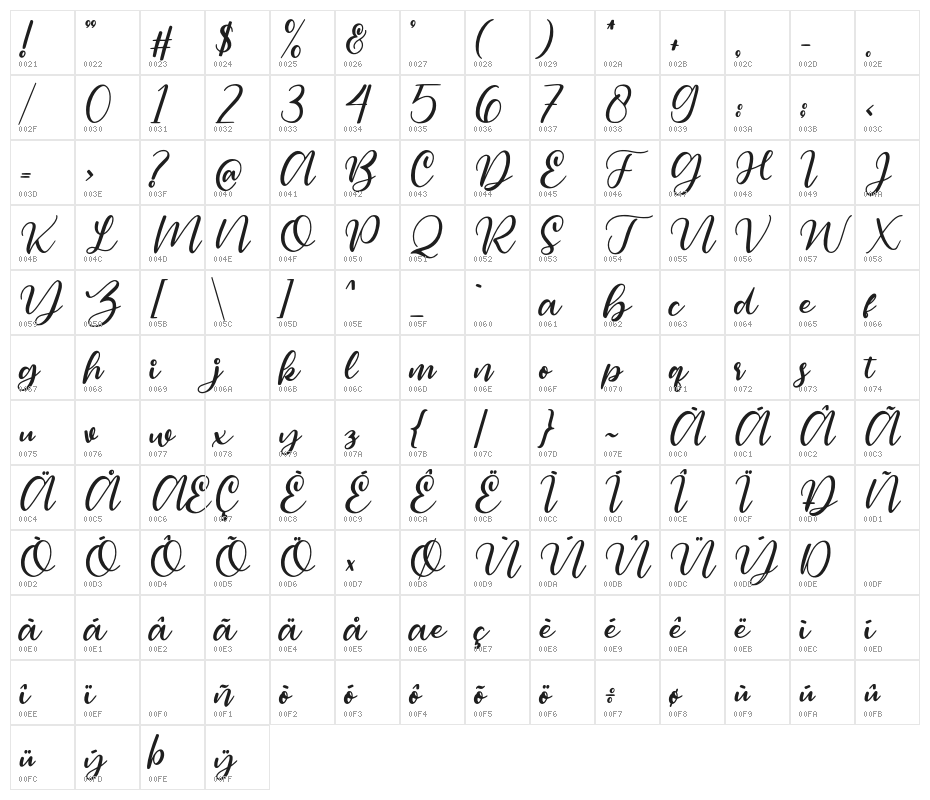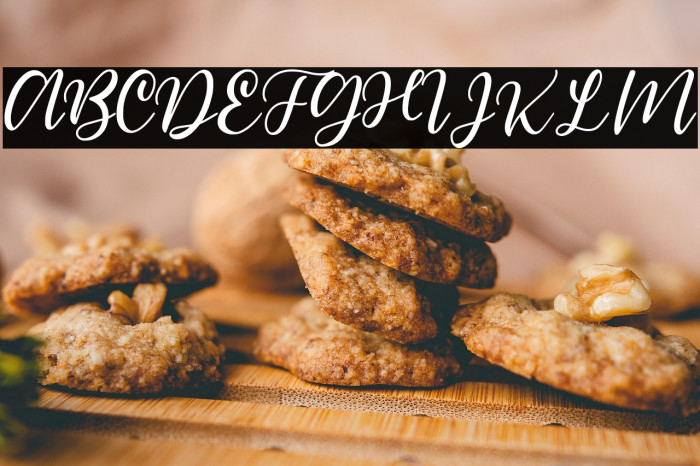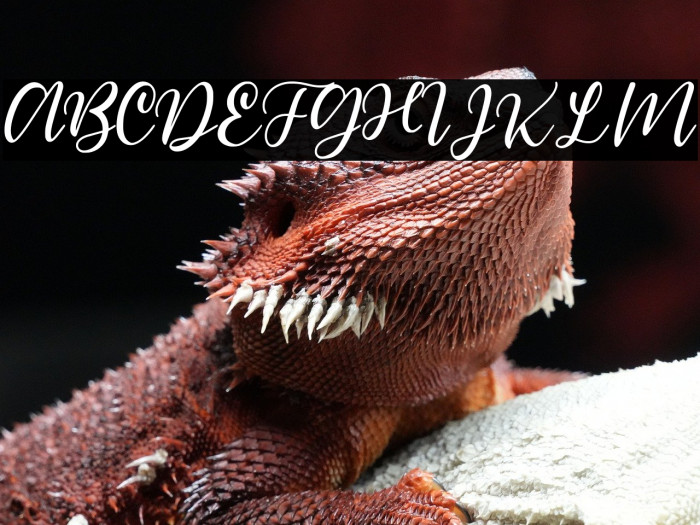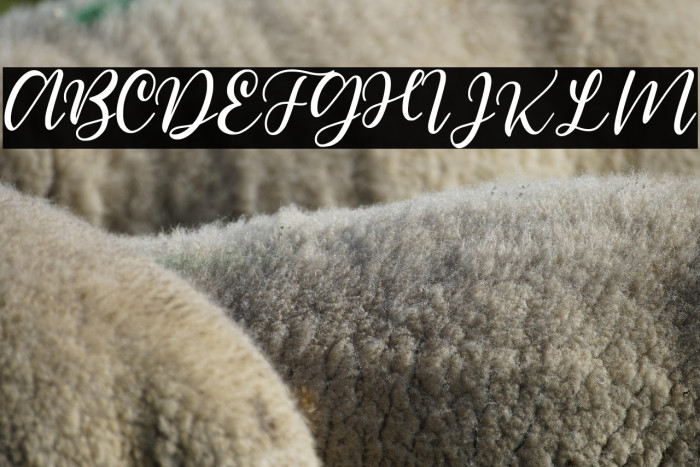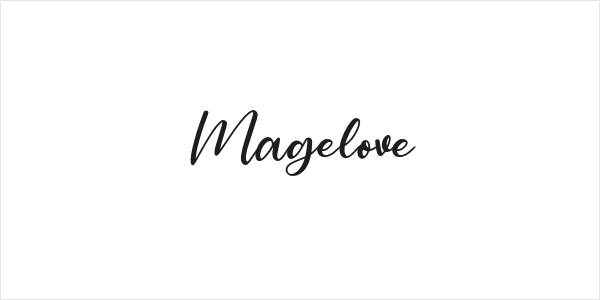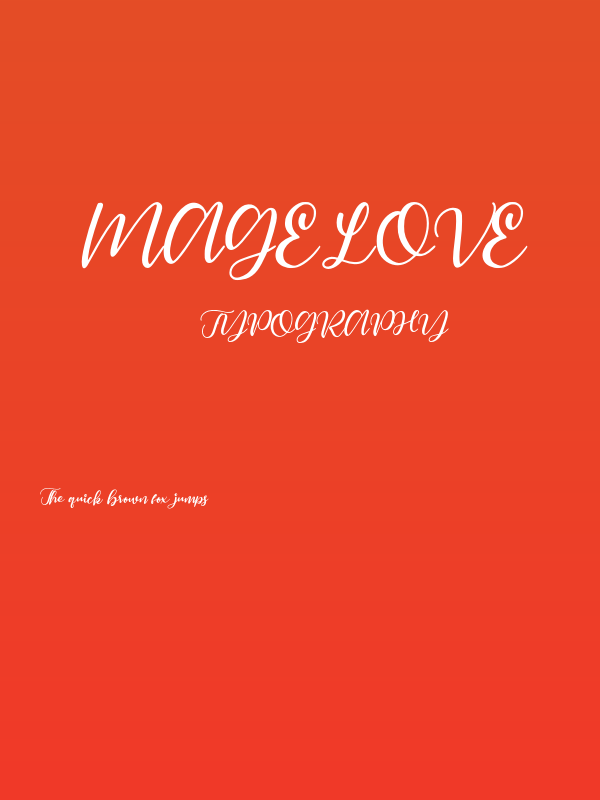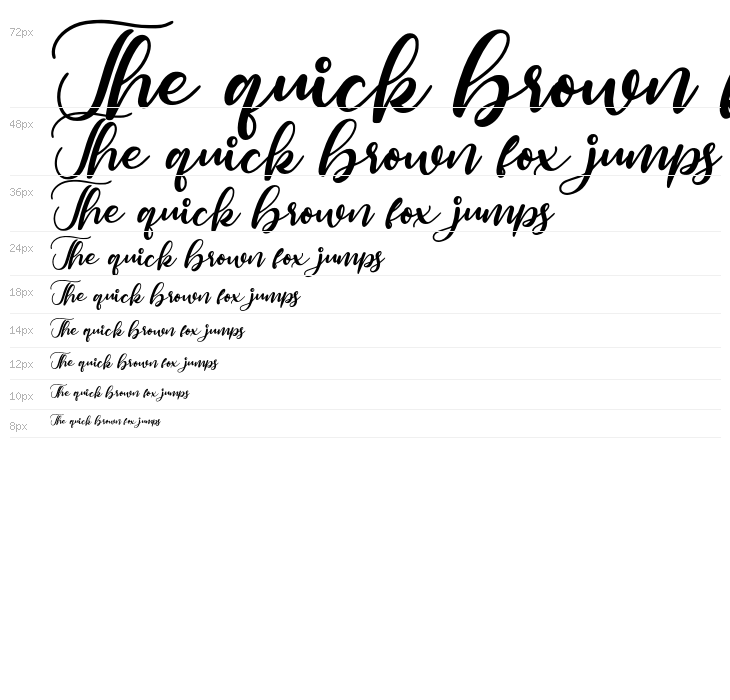
Magelove Font
Magelove Description
This font features a flowing, cursive style with elegant loops and swashes, giving it a handwritten appearance. The uppercase letters are tall and graceful, while the lowercase letters maintain a consistent flow, enhancing readability. The numbers are stylishly integrated with the same cursive flair, and the special characters are designed to complement the overall aesthetic. The font's strokes vary in thickness, adding a dynamic and lively feel. It is suitable for projects that require a personal touch or an artistic flair.
| Proposed Projects | Ideal for wedding invitations, greeting cards, branding, and artistic projects. |